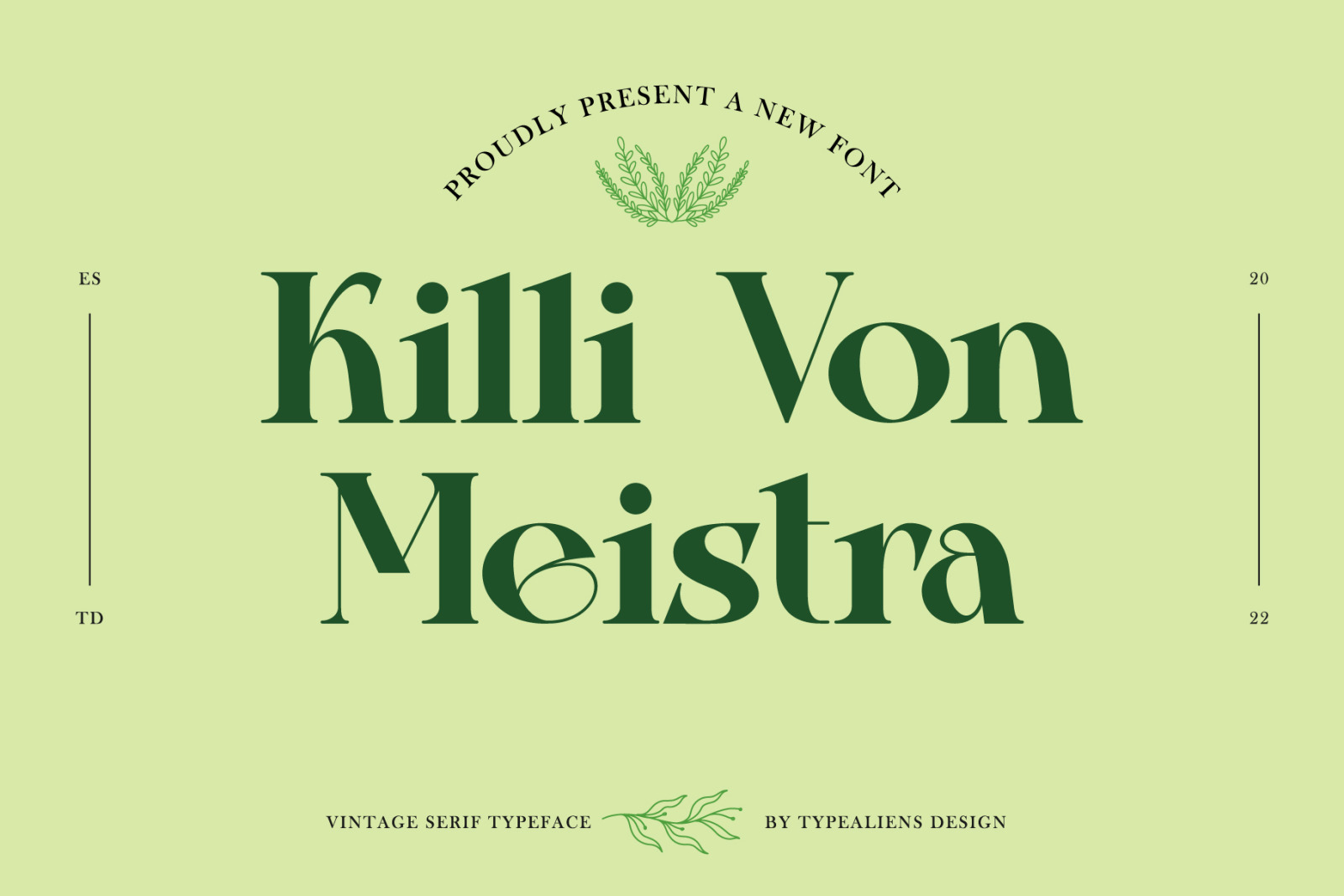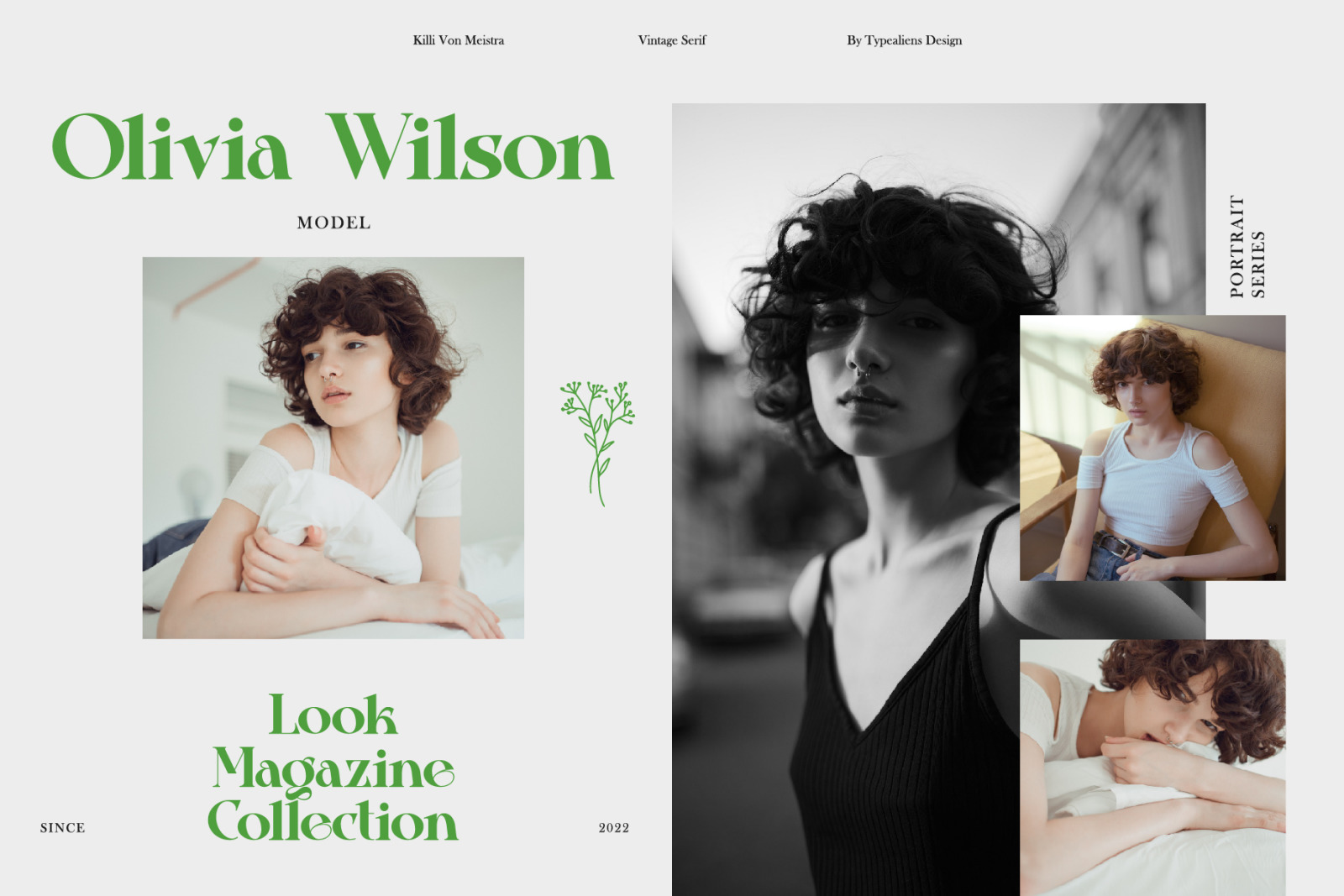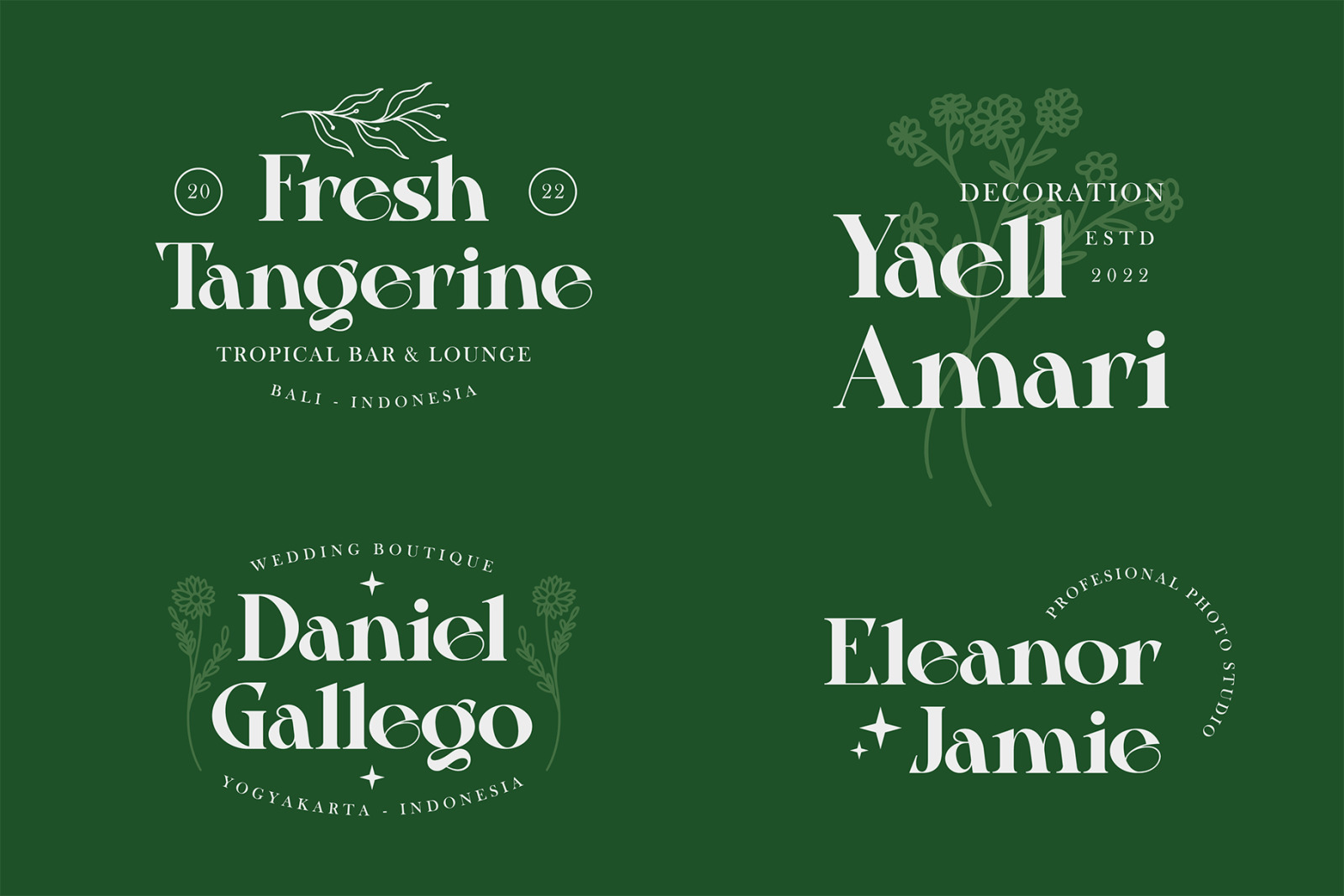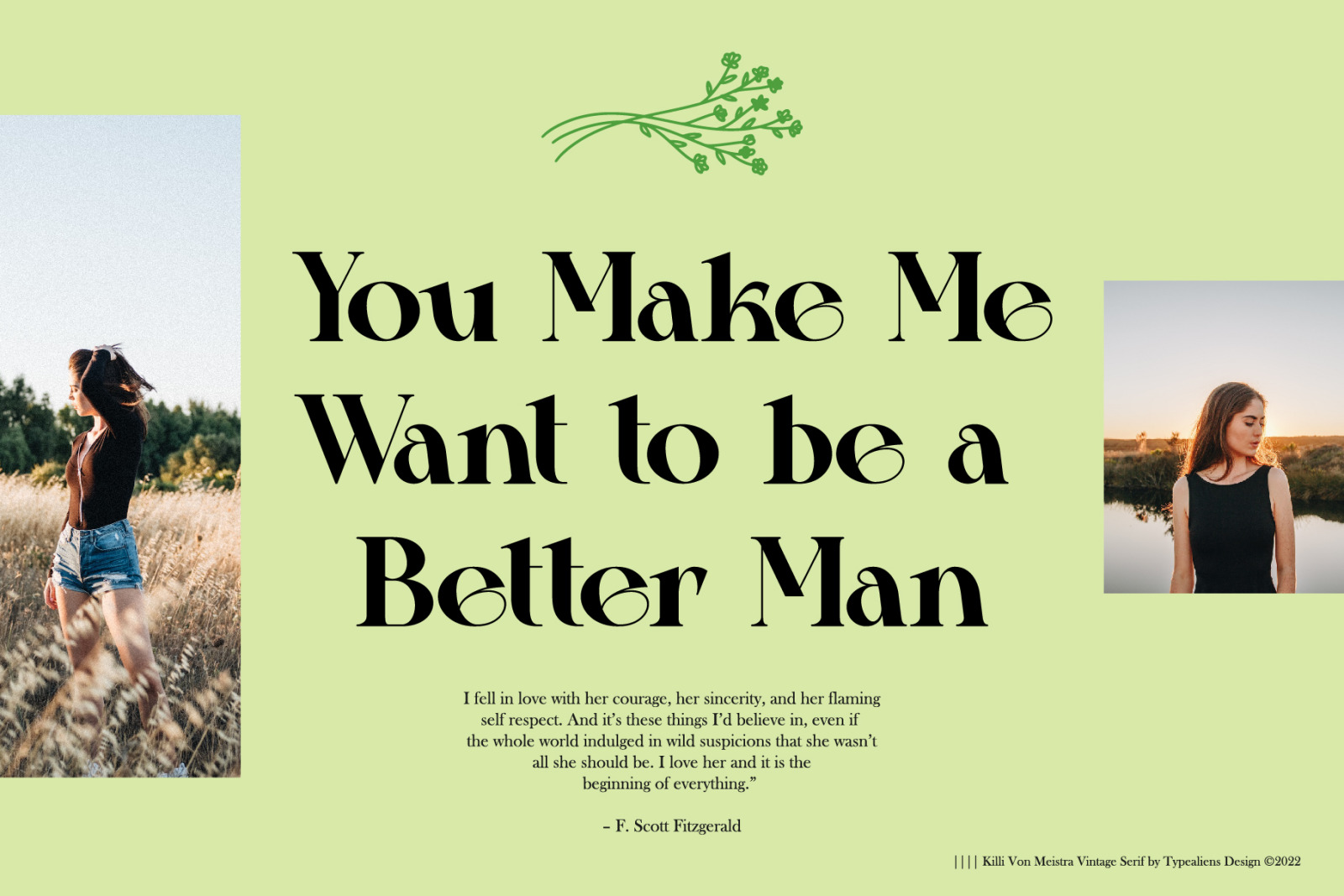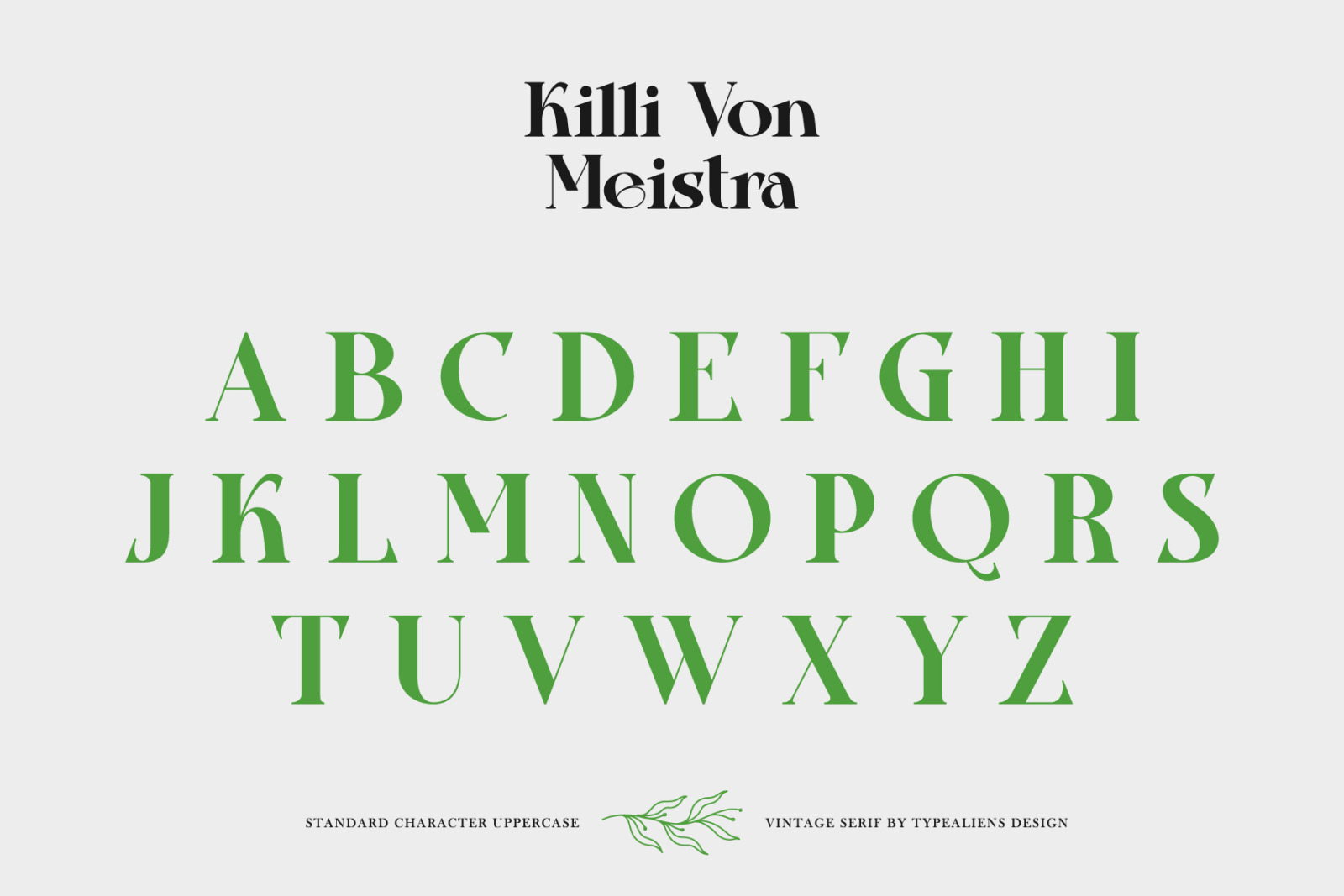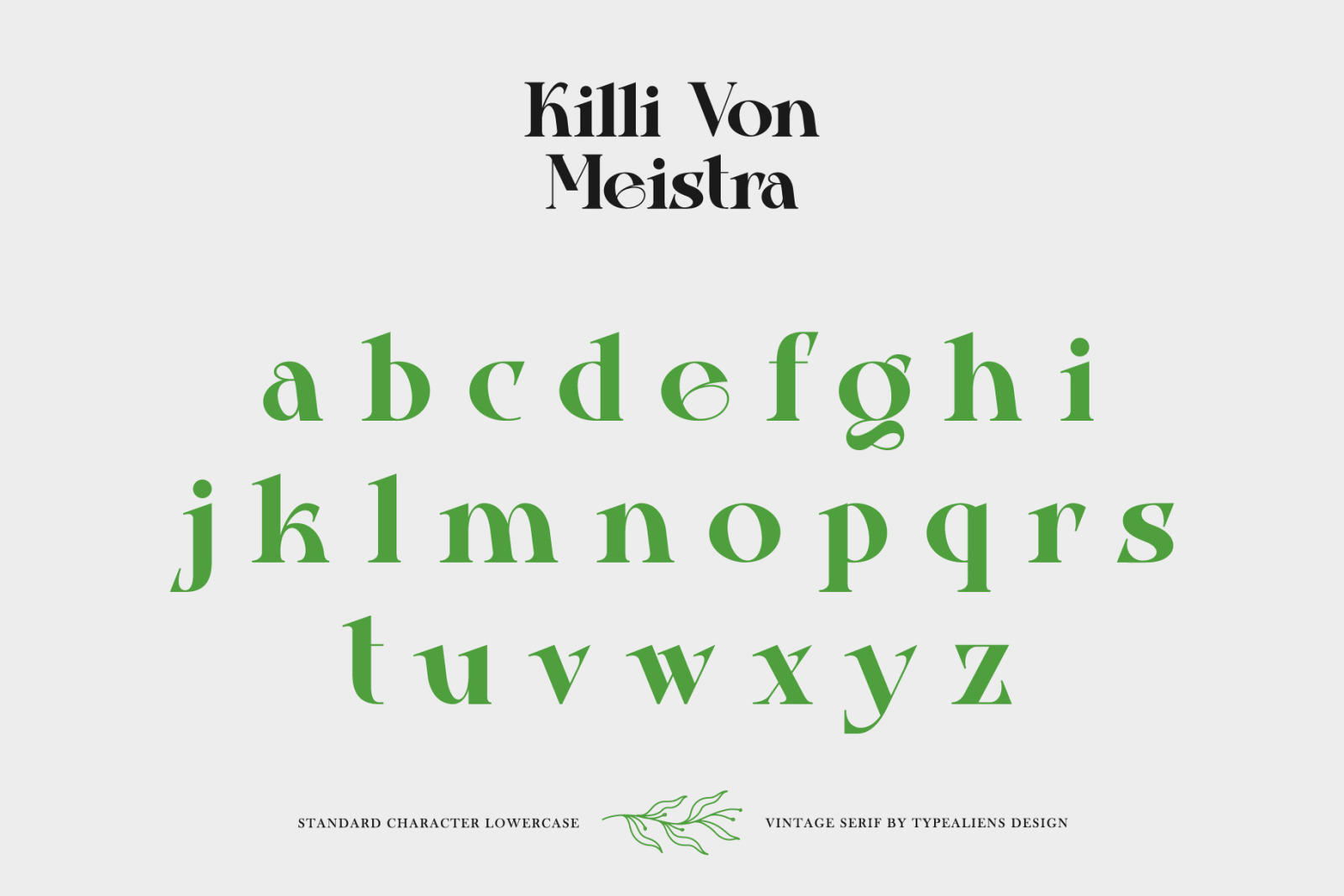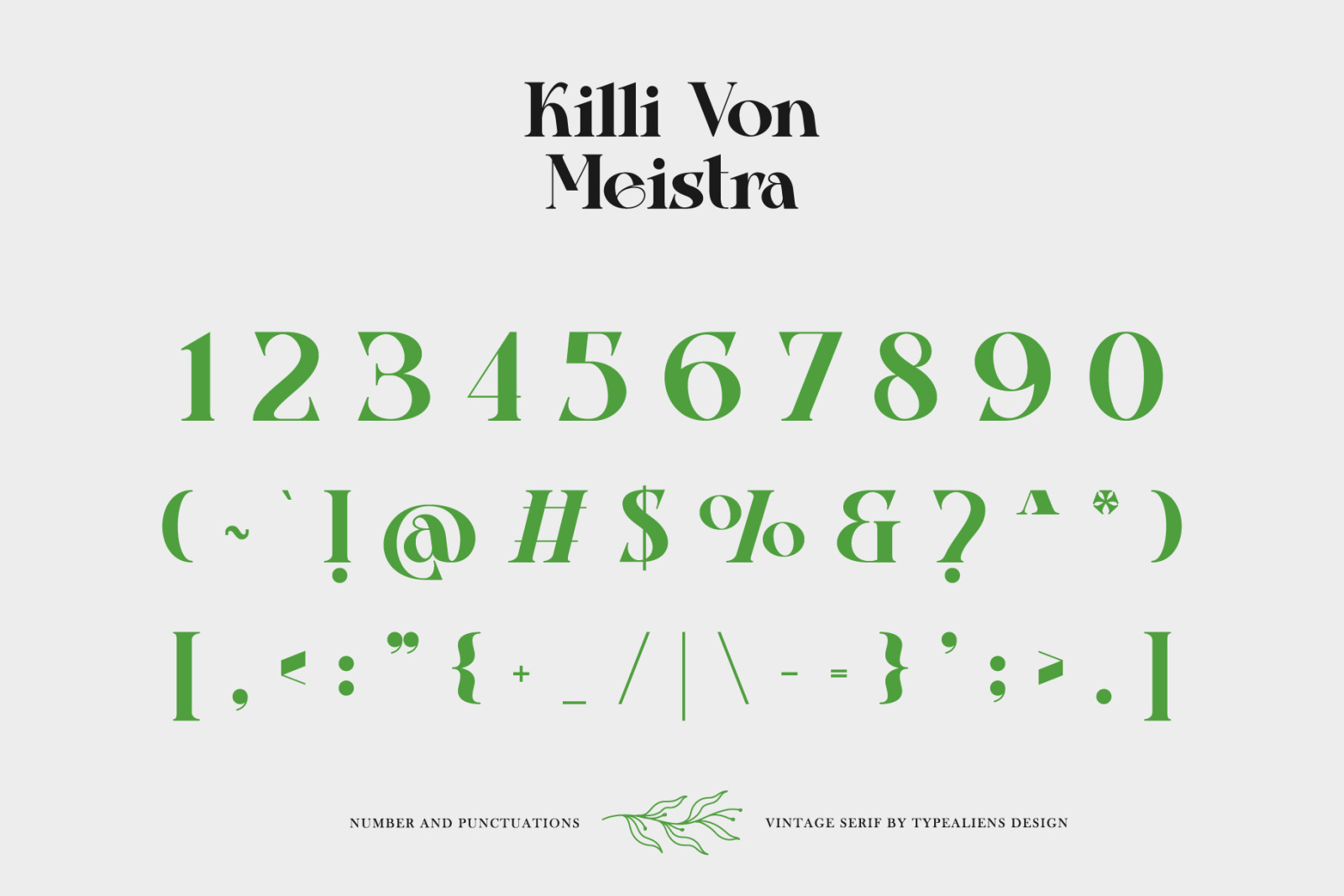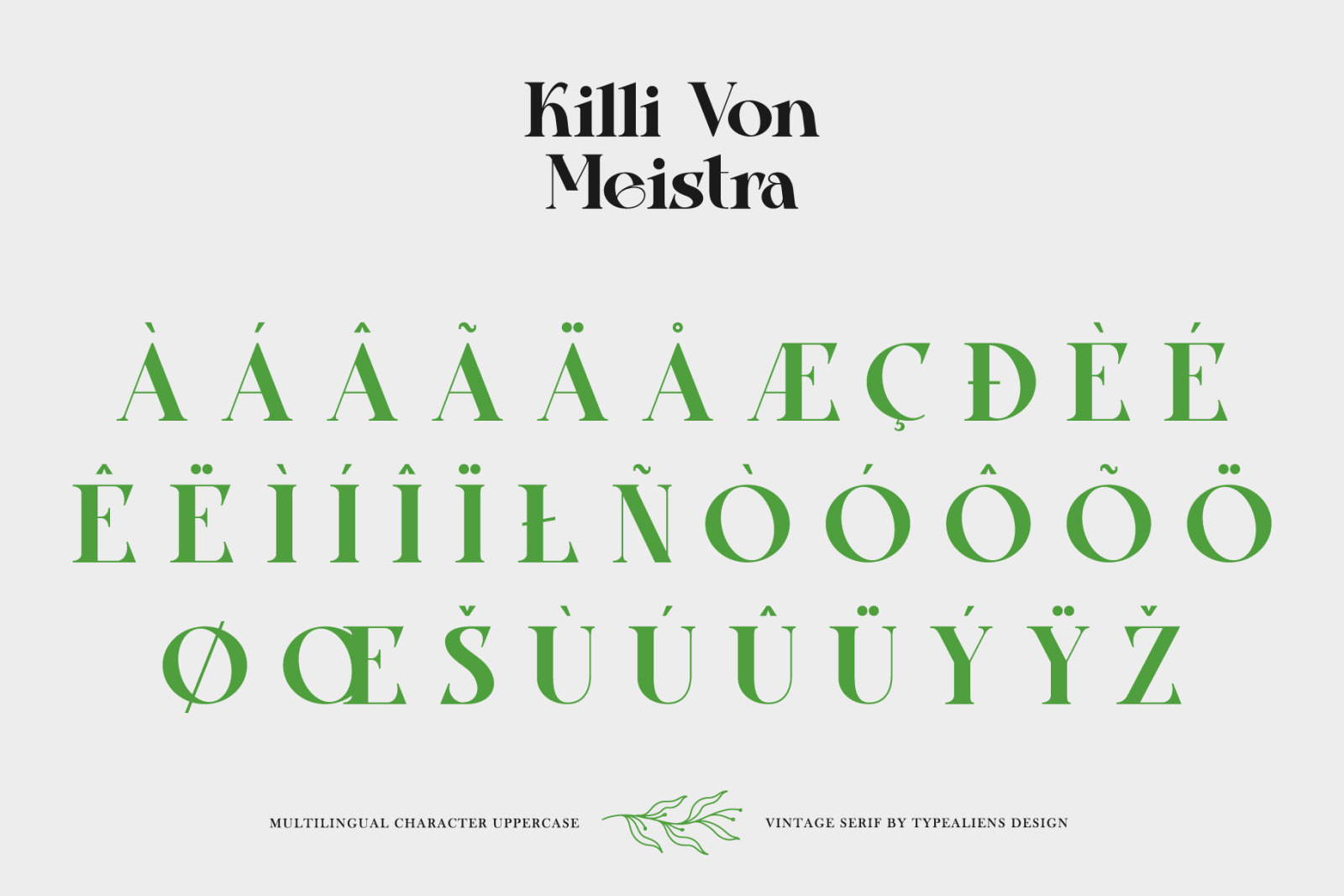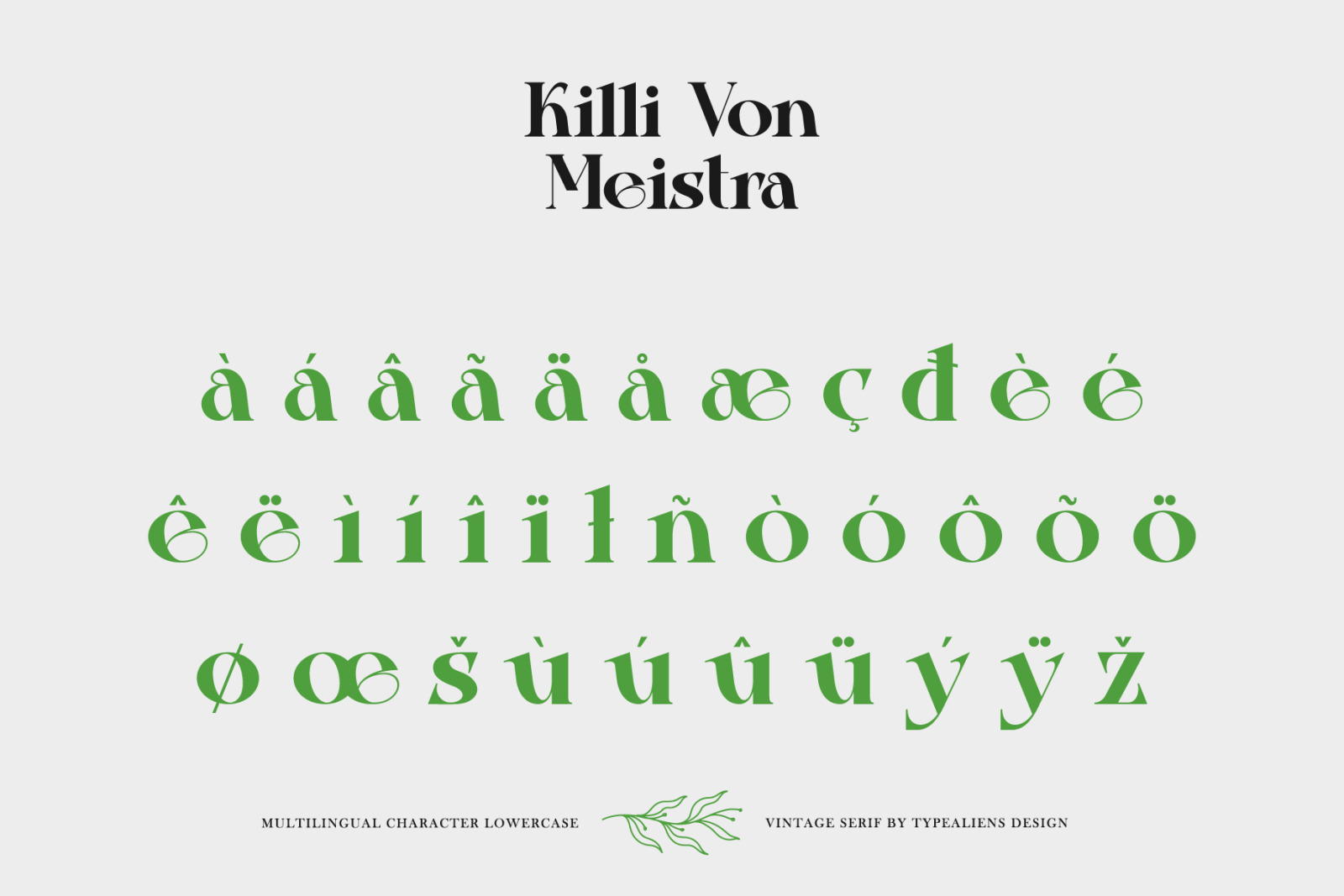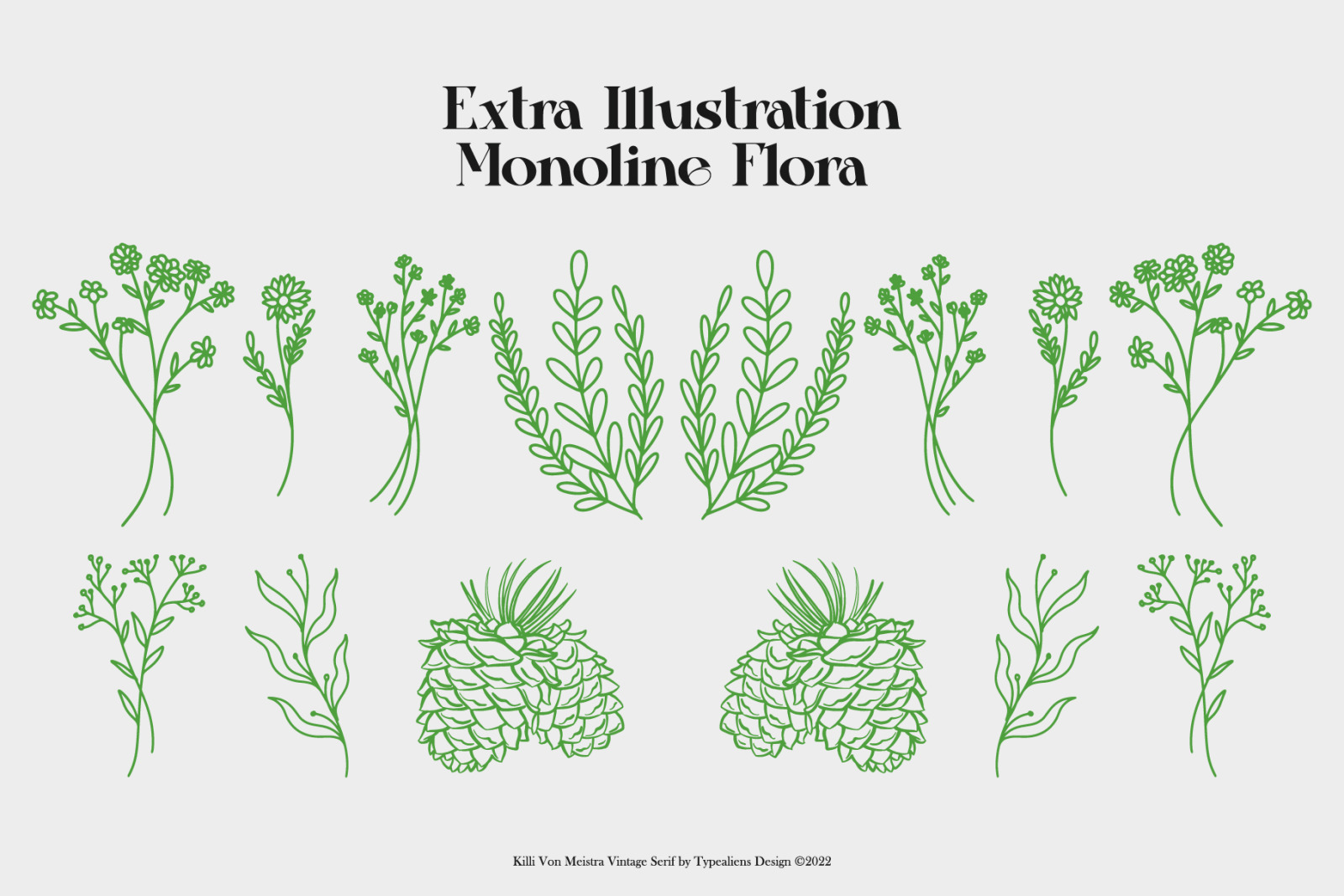
Killi Von Meistra Font
KILLI VON MEISTRA is a unique and beautiful serif font with a vintage feel but also suitable for modern designs such as magazines and social media.